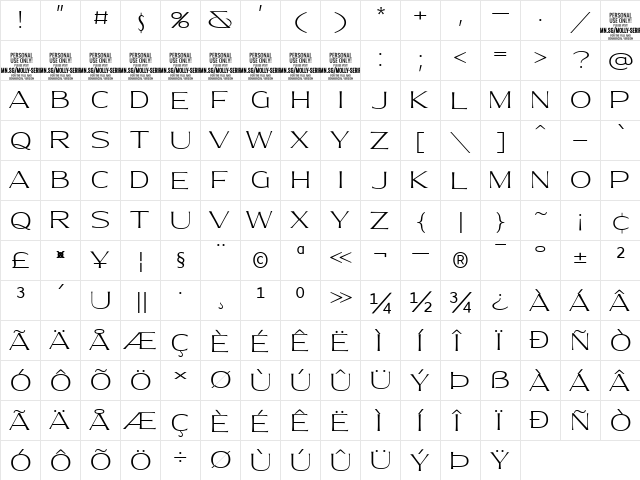
Molly Serif E PERSONAL Thin
Design Context for Molly Serif E PERSONAL Typeface
Molly Serif E PERSONAL brings classic typographic sensibility to the table — its serifs and measured letterforms reflect centuries of print heritage. Its slender proportions lend an understated elegance to any composition.
Pro Tip: Use Molly Serif E PERSONAL with generous line-spacing for the most refined reading experience — its light weight benefits from room between lines.